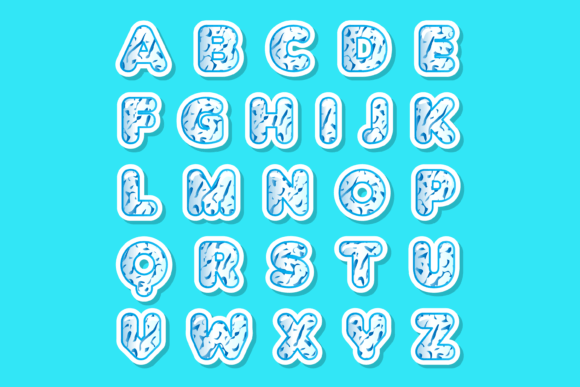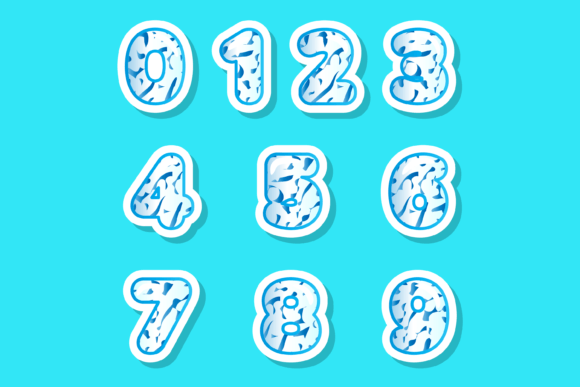
Frost Font: A Cool and Versatile Color Font for Designers and Crafters
If you’re looking for a font that adds a touch of elegance and sophistication to your designs, look no further than Frost Font. This incredibly cool color font is perfect for custom designs, DIY crafts, and any creation that requires a lovely touch. In this article, we’ll explore the features and benefits of Frost Font, as well as provide tips on how to use it effectively in your projects.
What is Frost Font?
Frost Font is a color font, specifically an Opentype-SVG font, which means it’s a cutting-edge font technology that allows for colorful and intricate designs. This font is perfect for designers and crafters who want to add a pop of color and personality to their work. Whether you’re creating custom signs, invitations, or decorations, Frost Font is an amazing choice.
Benefits of Using Frost Font
So, why choose Frost Font for your designs? Here are just a few benefits:
- Unique and eye-catching designs: Frost Font allows you to create stunning, colorful designs that will grab attention and leave a lasting impression.
- Elegant and sophisticated: This font adds a touch of elegance and sophistication to any design, making it perfect for special occasions, events, and celebrations.
- Versatile: Frost Font can be used for a wide range of projects, from custom signs and invitations to decorations and DIY crafts.
- Easy to use: With its compatibility with popular design software, you can easily integrate Frost Font into your workflow and start creating stunning designs.
Tips for Using Frost Font
To get the most out of Frost Font, here are a few tips:
- Experiment with different colors: One of the best things about Frost Font is its ability to display a range of colors. Experiment with different color combinations to find the perfect look for your design.
- Use it for special occasions: Frost Font is perfect for special occasions, such as weddings, birthdays, and holidays. Use it to create custom invitations, decorations, and gifts.
- Pair it with other fonts: Frost Font can be paired with other fonts to create a unique and eye-catching design. Experiment with different font combinations to find the perfect look.
In conclusion, Frost Font is an incredibly cool color font that’s perfect for designers and crafters who want to add a touch of elegance and sophistication to their designs. With its compatibility with popular design software and its versatility, Frost Font is an amazing choice for a wide range of projects. Whether you’re creating custom signs, invitations, or decorations, Frost Font is sure to impress. So why wait? Download Frost Font today and start creating stunning designs!